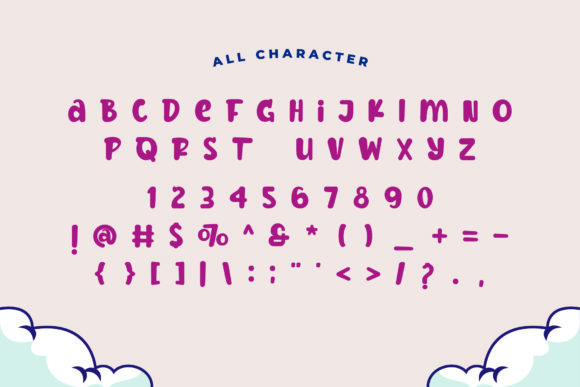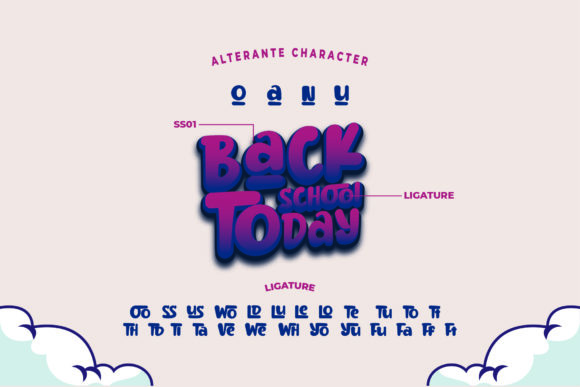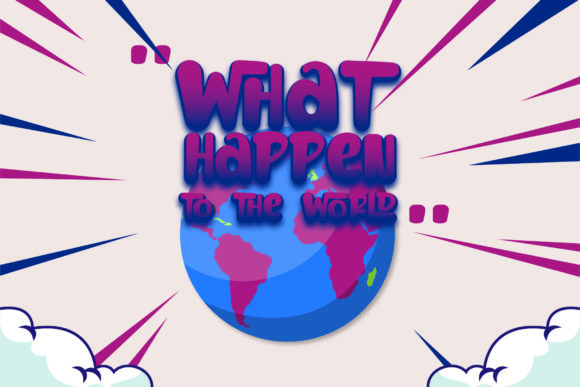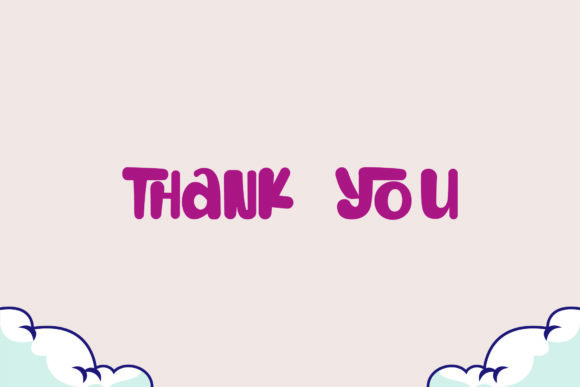
Introducing Growup World Font: The Perfect Addition to Your Design Arsenal
Are you a designer or crafter looking for a font that can add a touch of playfulness and whimsy to your creations? Look no further than Growup World Font! This cool and playful display font is perfect for anyone who wants to create eye-catching designs that are sure to delight. In this article, we’ll take a closer look at Growup World Font and explore its features, benefits, and uses.
What is Growup World Font?
Growup World Font is a modern, sans-serif display font that’s designed to bring a sense of fun and playfulness to your designs. With its rounded edges and smooth curves, this font is perfect for creating cartoon-related designs, children’s games, and any other project that requires a lovely touch. Whether you’re a professional designer or a crafty hobbyist, Growup World Font is an excellent choice for anyone who wants to add a bit of personality to their work.
Key Features of Growup World Font
So, what makes Growup World Font so special? Here are some of its key features:
- Playful and whimsical design: Growup World Font has a unique, hand-drawn design that’s perfect for creating playful and eye-catching designs.
- Rounded edges and smooth curves: The font’s rounded edges and smooth curves give it a friendly, approachable feel that’s perfect for designs that need to appeal to a younger audience.
- Highly legible: Despite its playful design, Growup World Font is highly legible, even at small sizes.
- Versatile: This font can be used for a wide range of projects, from cartoon-related designs and children’s games to posters, flyers, and more.
Benefits of Using Growup World Font
So, why should you choose Growup World Font for your next project? Here are some of the benefits of using this amazing font:
- Adds a touch of personality: Growup World Font can add a touch of personality and whimsy to your designs, making them stand out from the crowd.
- Perfect for kids’ designs: The font’s playful design makes it perfect for designs aimed at kids, such as children’s games, posters, and flyers.
- Easy to read: Despite its playful design, Growup World Font is easy to read, even for younger audiences.
- Great for branding: This font can be used to create a unique and memorable brand identity that’s sure to delight your target audience.
How to Use Growup World Font
Using Growup World Font is easy! Here are some tips to get you started:
- Pair it with bold colors: Growup World Font looks amazing when paired with bold, bright colors. Try using it with colors like pink, blue, and yellow to create a playful design.
- Use it for headings: This font is perfect for headings and titles, where you want to make a bold statement.
- Experiment with sizes: Growup World Font looks great at a range of sizes, from small to large. Experiment with different sizes to find the one that works best for your design.
| Font Name | Growup World Font |
| Author | Nerdstudio |